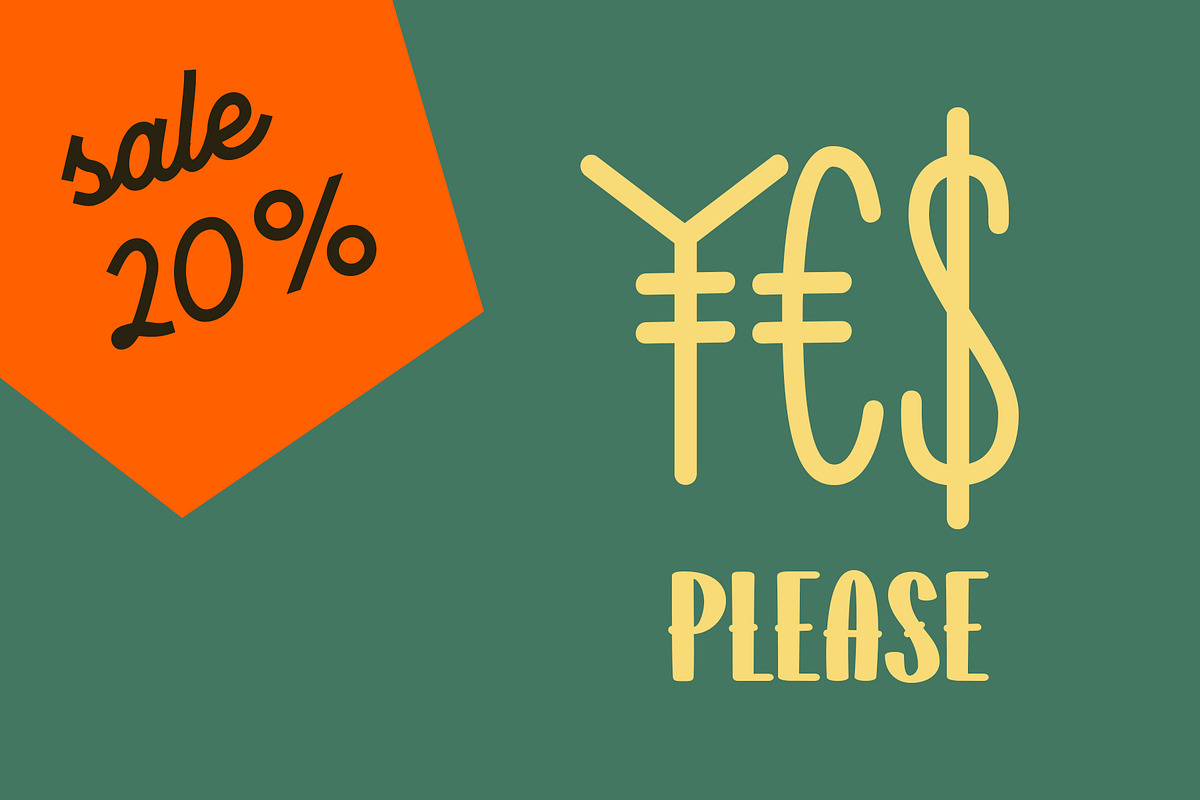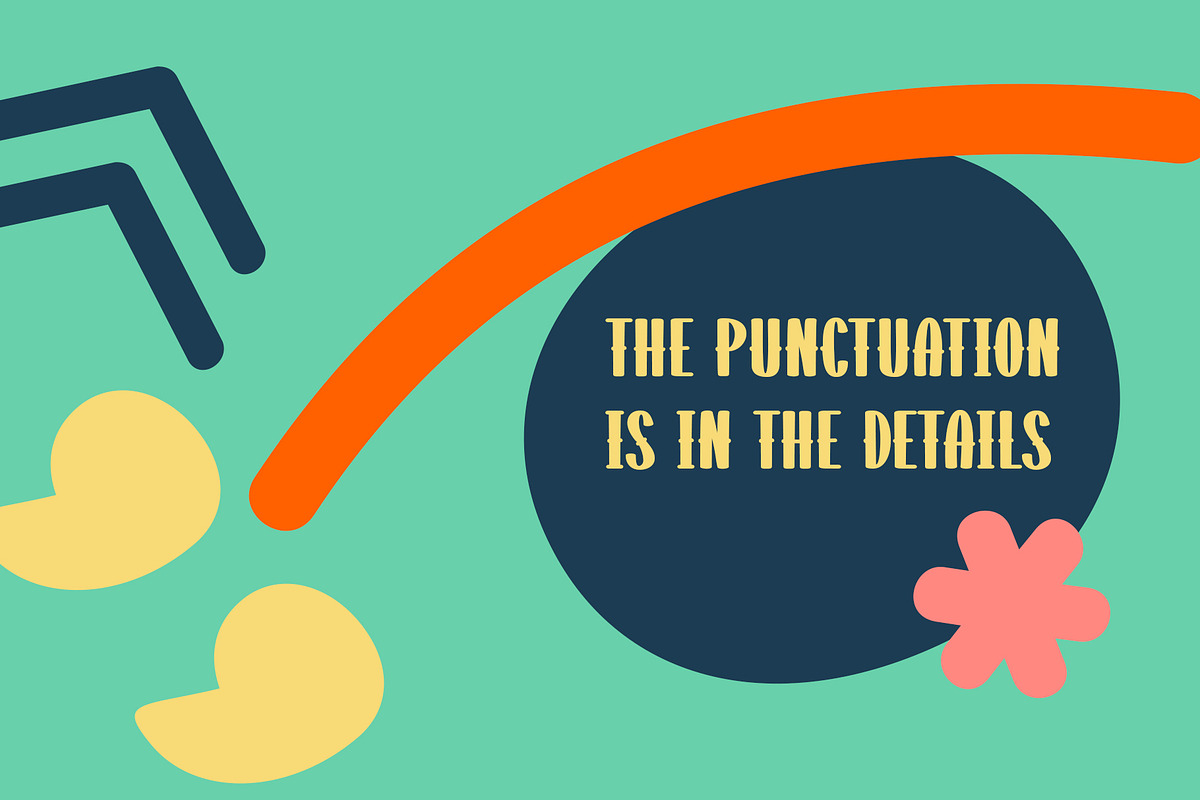
Baker ST
Baker ST is all caps type family. It has multi language support and provides web fonts. The family includes 5 styles: regular and decorative. In decorative ones uppercase is a bit different to lowercase.